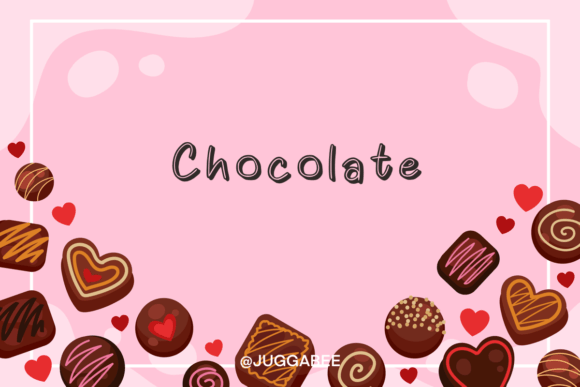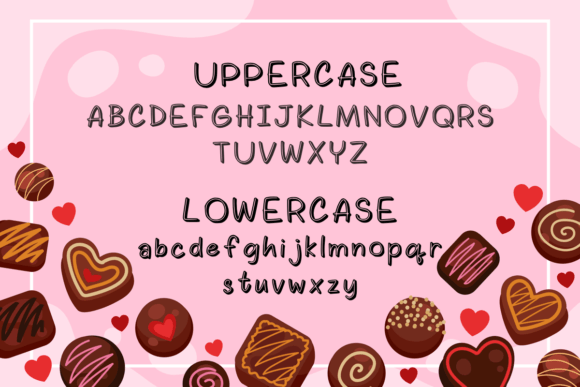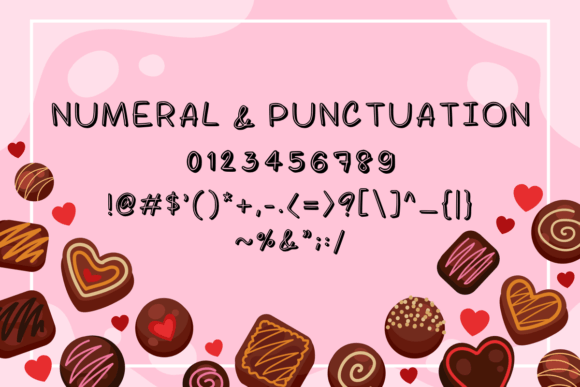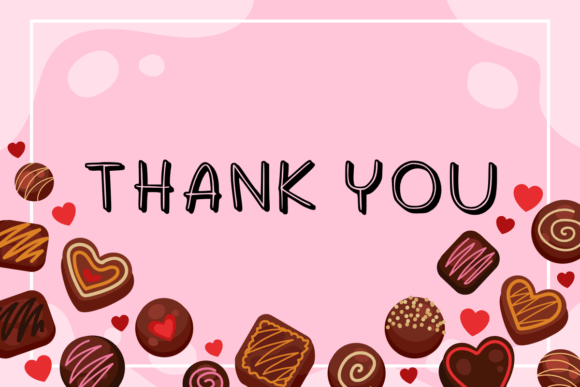
Chocolate Font
About Chocolate Font Download
The Chocolate Font Download is a fun and friendly handwritten script designed to add a warm, personal touch to your creative work. With its smooth strokes and playful curves, Chocolate is versatile enough for both personal and professional projects. Whether you’re designing invitations, posters, or digital graphics, this typeface will elevate your designs with charm and character.
A Fun and Friendly Handwritten Script
The Chocolate script font blends a casual handwritten style with modern design balance. As a result, it looks both approachable and stylish. Furthermore, it adapts to different contexts, from elegant stationery to bold displays, making it an excellent choice for designers.
Handwritten fonts always add personality to stationery projects. The Chocolate Font is perfect for wedding invitations, thank you cards, birthday greetings, and seasonal messages. Because of its friendly handwritten strokes, each card feels heartfelt and unique. In addition, it helps your designs stand out while maintaining warmth.
Branding and Logo Design with Chocolate Font
Typography builds strong visual identities. The Chocolate handwritten font is a great choice for boutique logos, product packaging, and marketing campaigns. Its playful yet professional design makes it suitable for lifestyle, fashion, and artisanal branding. Therefore, it works well across industries looking for personality and authenticity.
Posters, Quotes, and Editorial Projects
The Chocolate Font Download is also excellent for posters, book covers, inspirational quotes, and magazines. Its legible strokes make it perfect for large displays while maintaining a natural, handwritten charm. Consequently, it is a dependable tool for both editorial and promotional work.
In today’s digital world, fonts need to be engaging across platforms. The Chocolate typeface integrates seamlessly into Instagram posts, YouTube thumbnails, Pinterest graphics, and blogs. Because of its playful handwritten style, it enhances your digital projects with a modern and inviting look.
Why Designers Choose Chocolate Typeface
Designers appreciate fonts that combine creativity with practicality. The Chocolate handwritten script maintains clarity while delivering a fun and friendly personality. This makes it suitable for professionals as well as hobbyists. Moreover, its timeless handwritten style ensures long-lasting appeal.